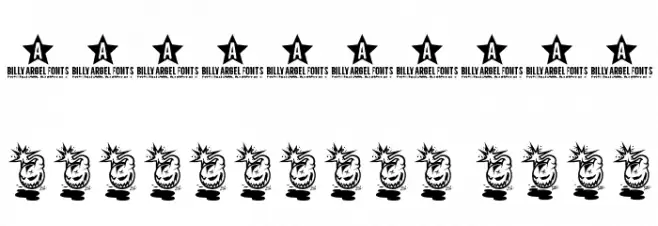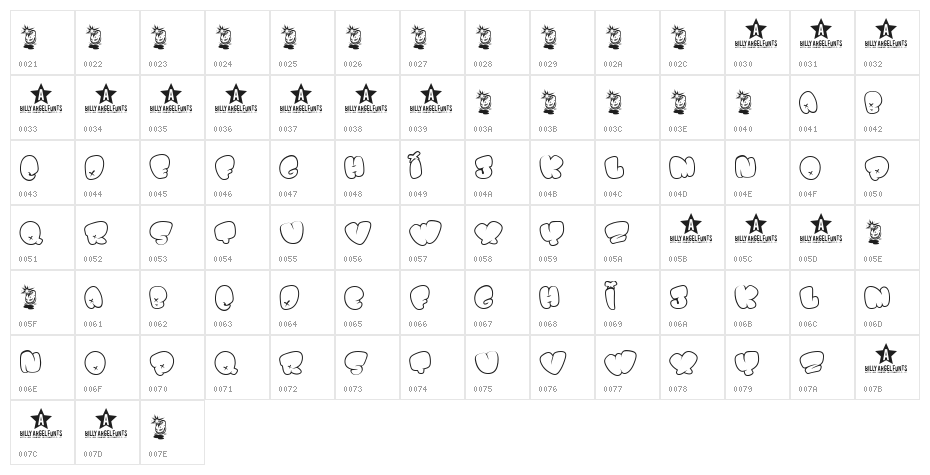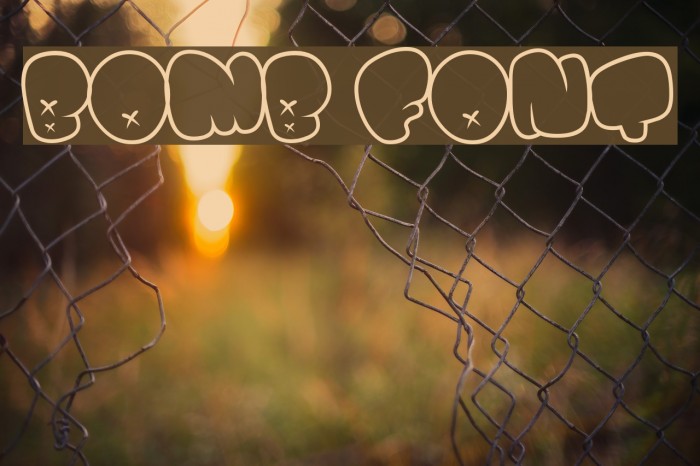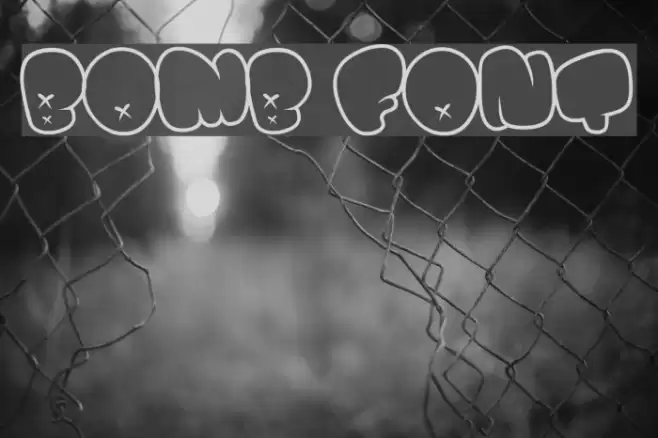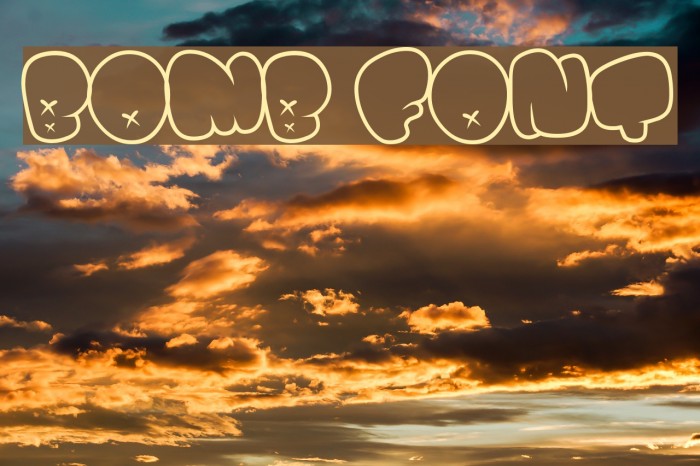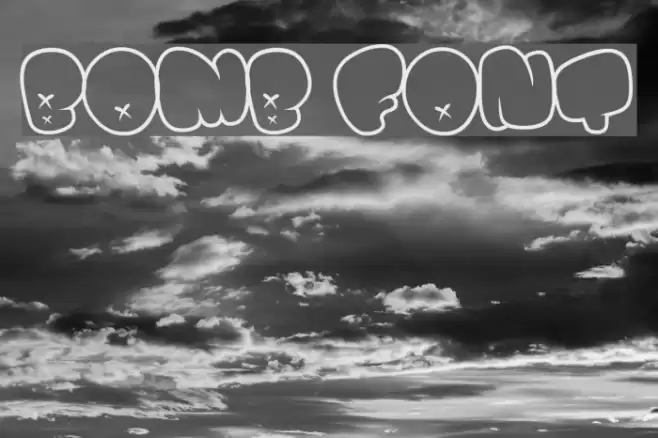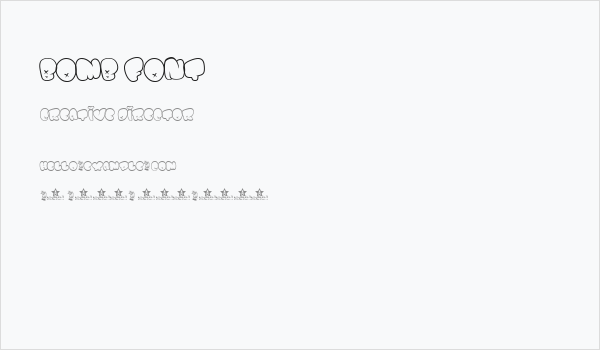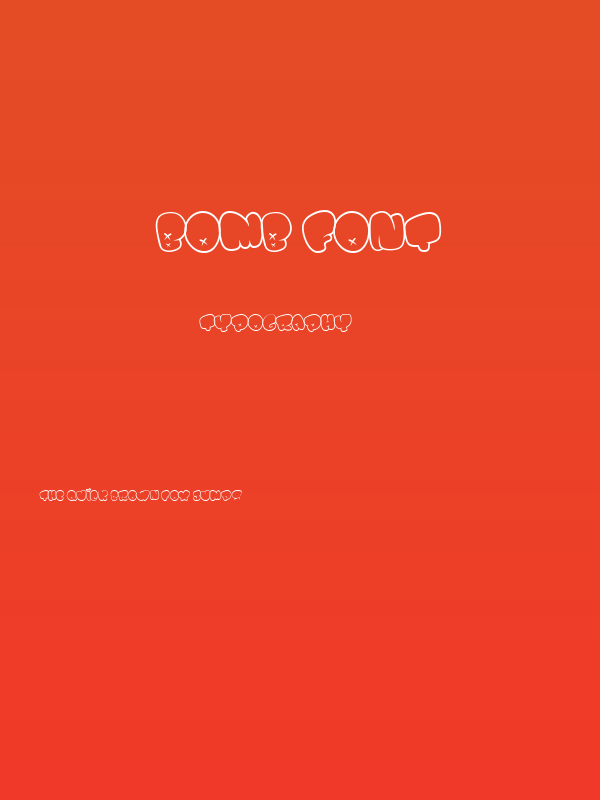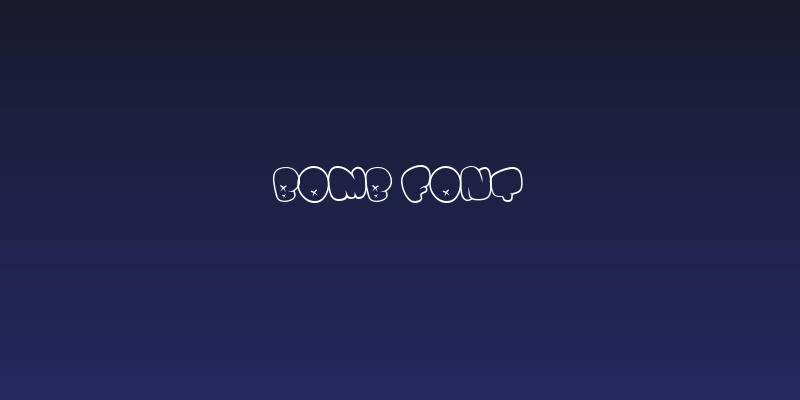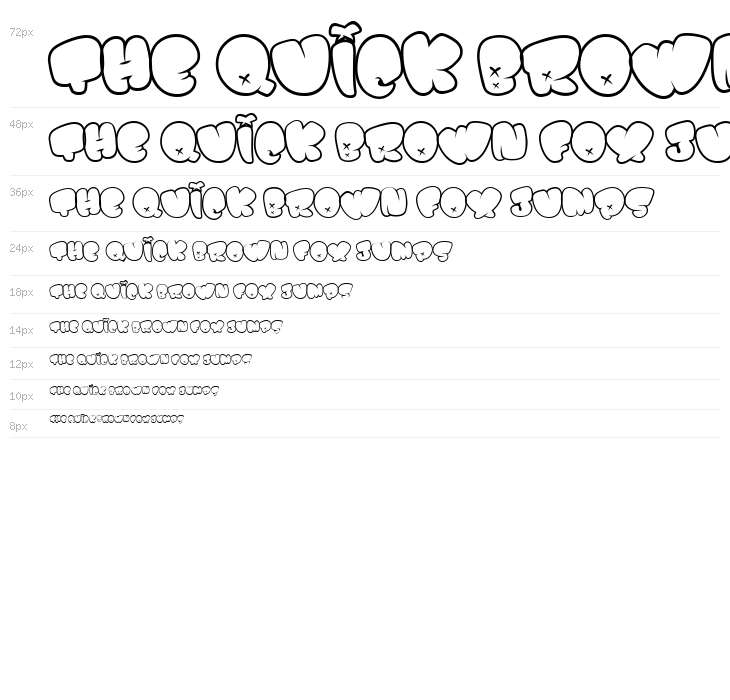
BOMB FONT Font
BOMB FONT Description
This playful and bold font features a unique, cartoonish style with thick, rounded letters that resemble inflated balloons. Each character is designed with a whimsical touch, incorporating small details like crosses or dots that add to its quirky personality. The font maintains a consistent weight throughout, emphasizing its bold and eye-catching appearance. Its exaggerated curves and playful design make it ideal for creative projects that require a fun and engaging typeface.
| Overall Style | Playful, Cartoonish |
| Use Case | Headlines, Posters, Logos |
| Proposed Projects | Ideal for children's book covers, playful posters, comic strips, and any project that requires a fun and engaging typeface. |